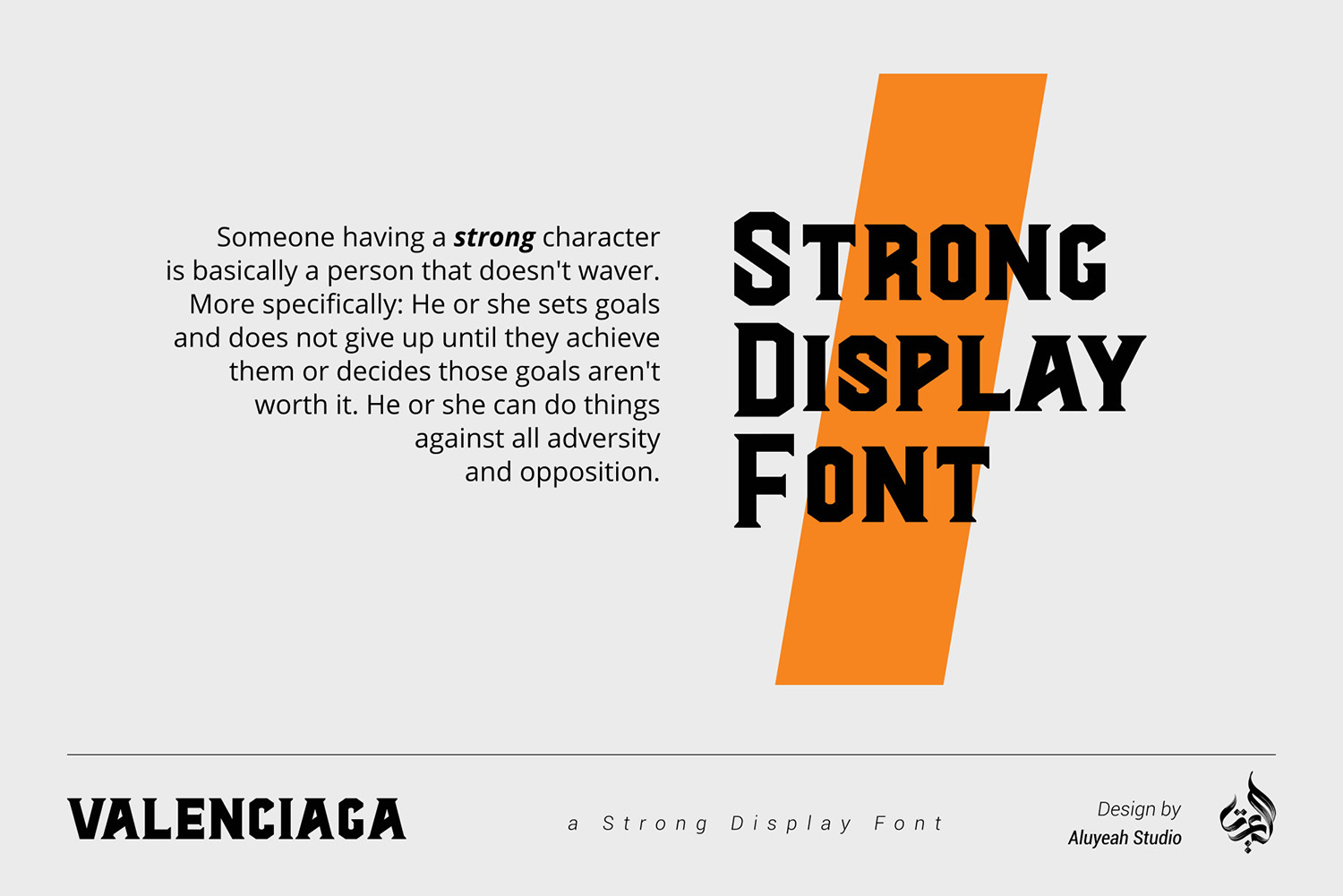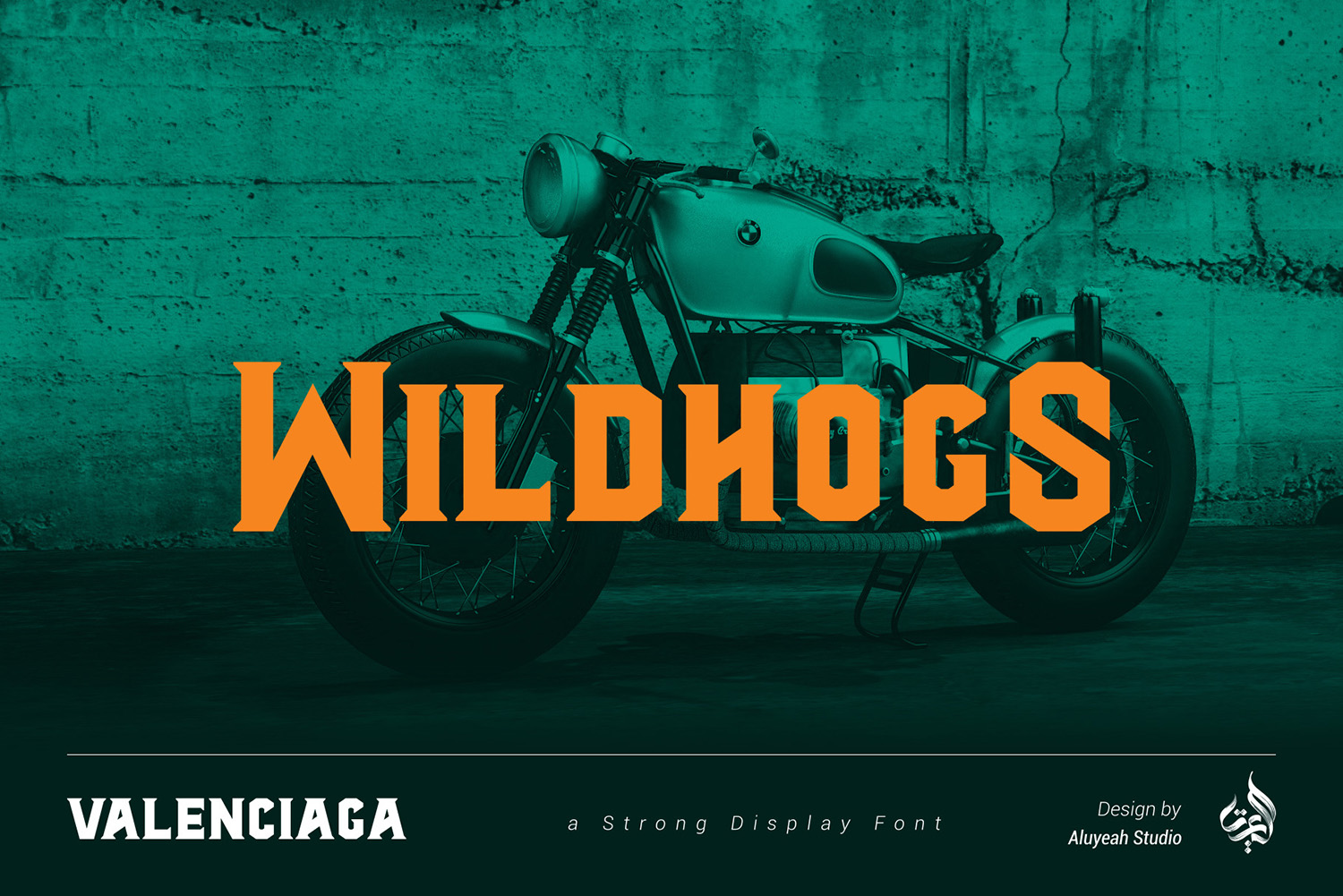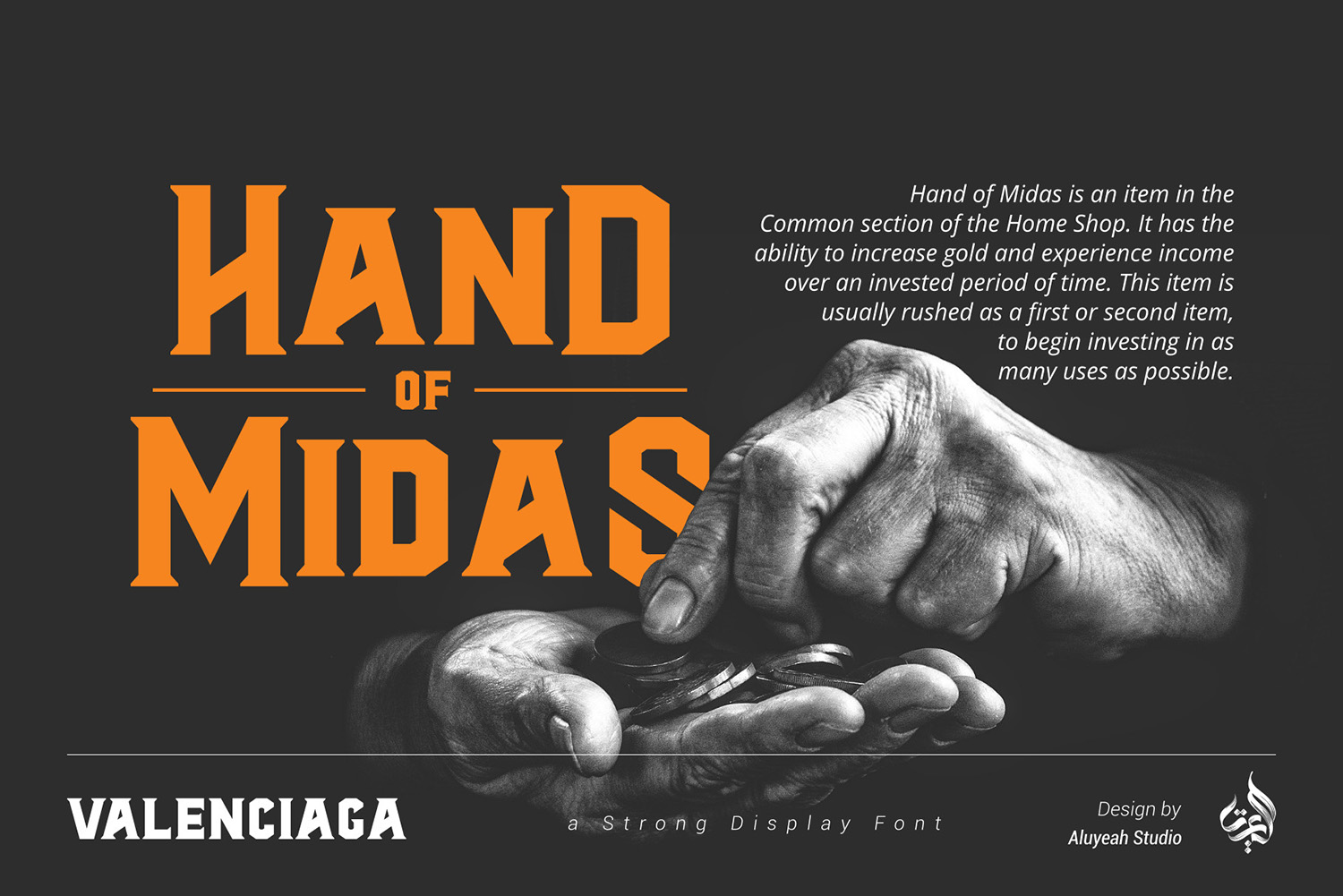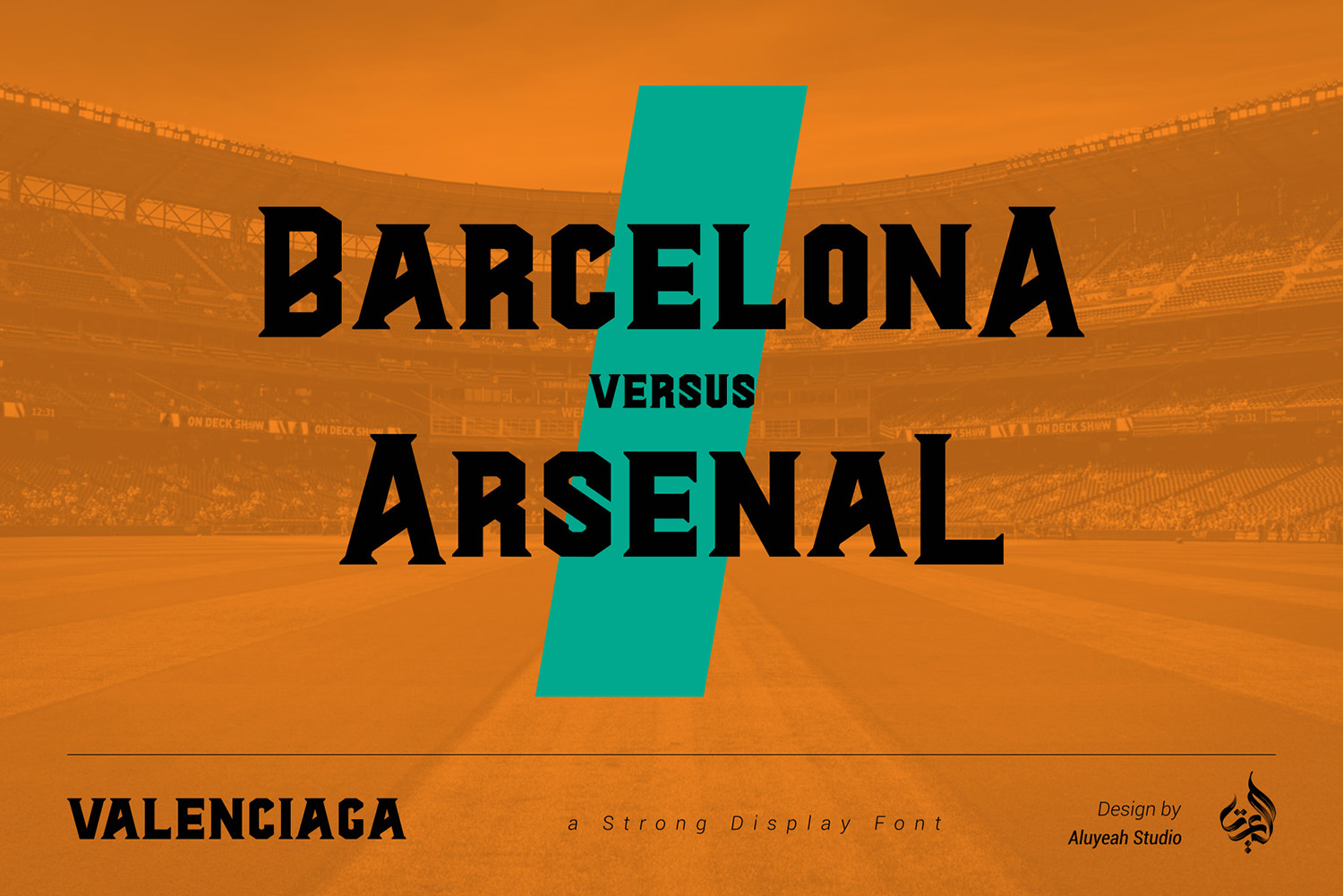
Valenciaga Free Font
Valenciaga Free Font is a strong display font. Valenciaga is a fully-kerned title case display typeface built for a strong design vibe. This free typeface was designed by a talented Aluyeah. If you like it don’t forget to check out the full version.